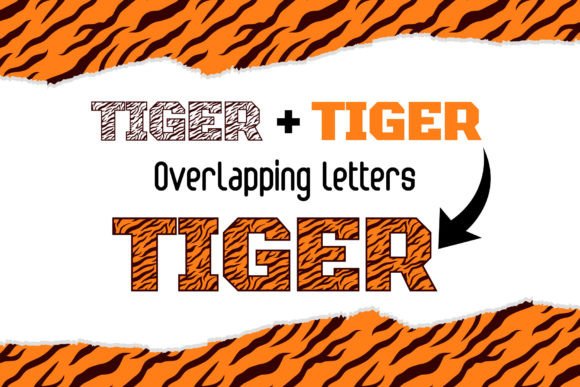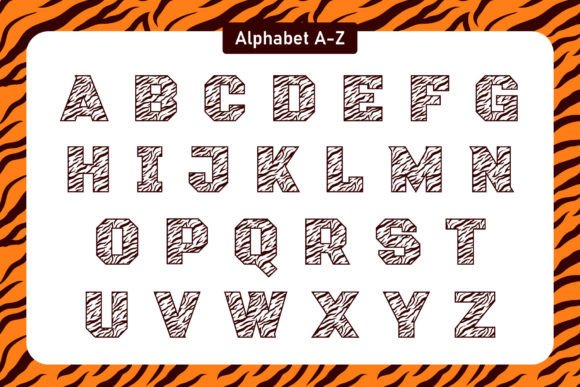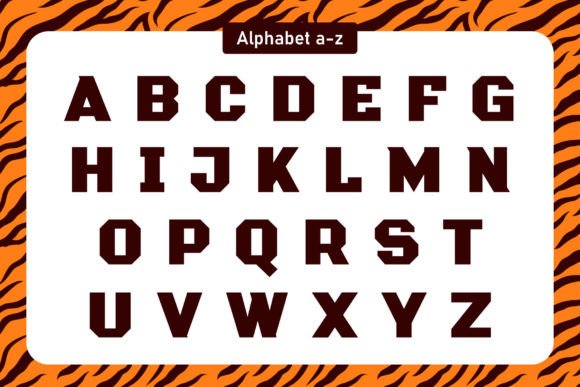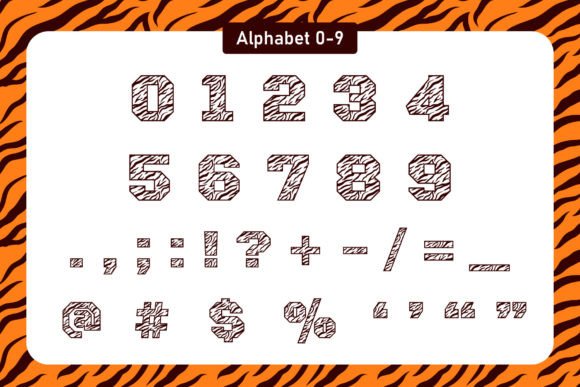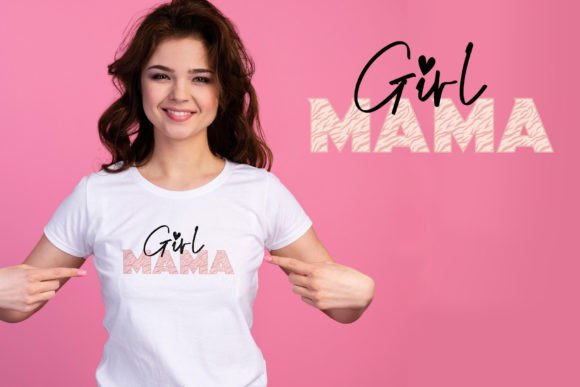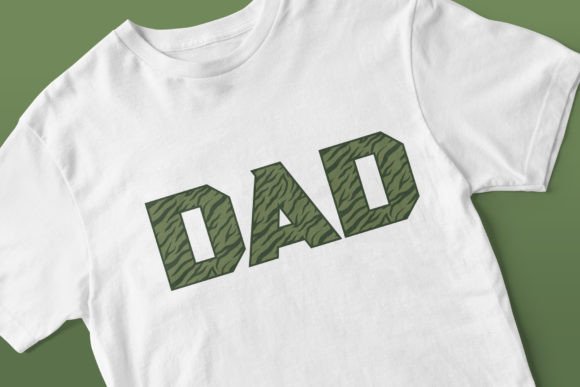
Bengal Tiger Font: Unleash the Roar of Creativity
Are you tired of using the same old fonts for your designs? Look no further than the Bengal Tiger Font, a cool and fun decorative font that’s sure to make your creations stand out. With its strong outline and incredibly cool characters, this font is perfect for designers and crafters looking to add a touch of excitement to their work.
What Makes Bengal Tiger Font So Special?
The Bengal Tiger Font is a unique and eye-catching font that’s designed to make a statement. Its strong outline and bold characters make it perfect for use in a variety of applications, from publications and logos to business cards and printed t-shirts. Whether you’re a professional designer or a crafty hobbyist, this font is sure to become a valuable addition to your font library.
One of the best things about the Bengal Tiger Font is its versatility. It can be used in a wide range of design applications, including:
- Publications: Use the Bengal Tiger Font to add a bold and eye-catching touch to your magazine or newspaper headlines.
- Logos: Create a memorable and impactful logo for your business or brand with this striking font.
- Business Cards: Make a lasting impression with a business card that features the Bengal Tiger Font.
- T-Shirts and Apparel: Print the Bengal Tiger Font on t-shirts, hoodies, or other apparel to create a unique and stylish look.
Why You’ll Love the Bengal Tiger Font
So why should you choose the Bengal Tiger Font for your next design project? Here are just a few reasons:
- Unique and Eye-Catching: The Bengal Tiger Font is a one-of-a-kind font that’s sure to grab attention.
- Highly Versatile: Use this font in a wide range of design applications, from publications to apparel.
- Easy to Read: Despite its bold and decorative style, the Bengal Tiger Font is still easy to read and understand.
- Incredibly Cool Characters: The Bengal Tiger Font features a range of cool and quirky characters that are sure to add a touch of personality to your designs.
Tips for Using the Bengal Tiger Font
To get the most out of the Bengal Tiger Font, here are a few tips to keep in mind:
- Use it Sparingly: While the Bengal Tiger Font is certainly eye-catching, it can also be overwhelming if used too much. Use it sparingly to create a bold and impactful design.
- Pair it with Other Fonts: The Bengal Tiger Font pairs well with a range of other fonts, from simple sans-serif fonts to more decorative scripts.
- Experiment with Colors: The Bengal Tiger Font looks great in a range of colors, from bold and bright to more muted and subtle.